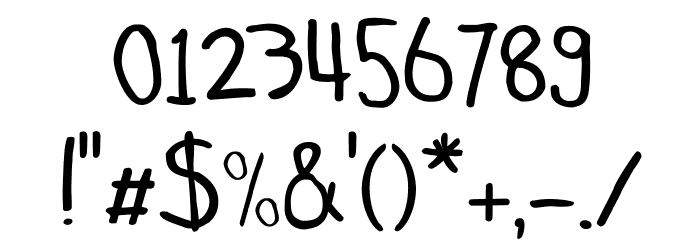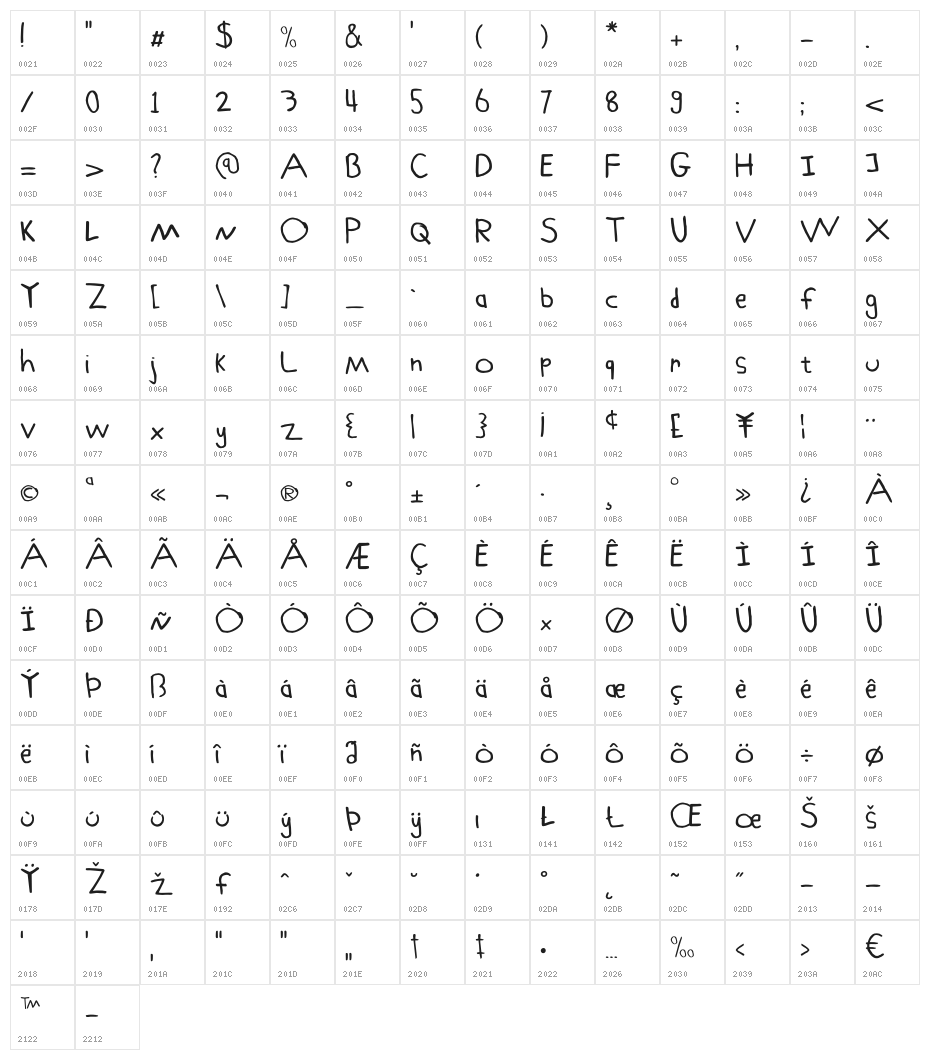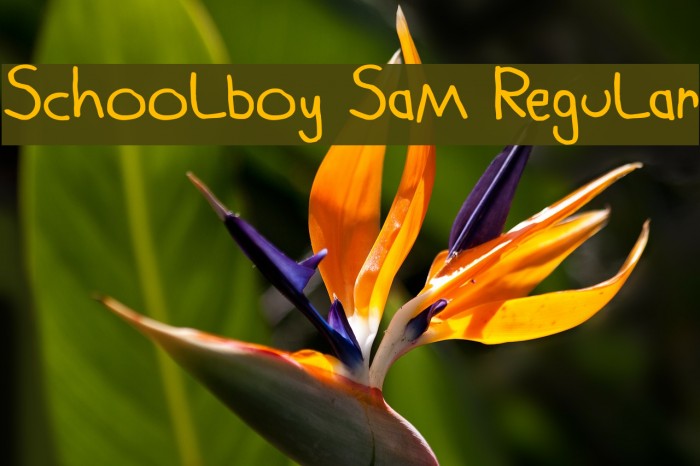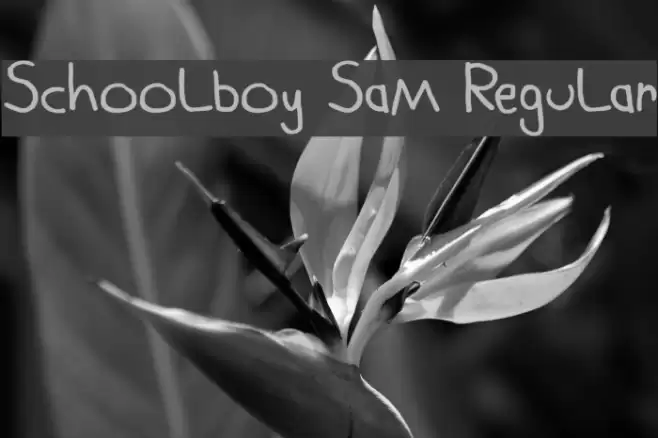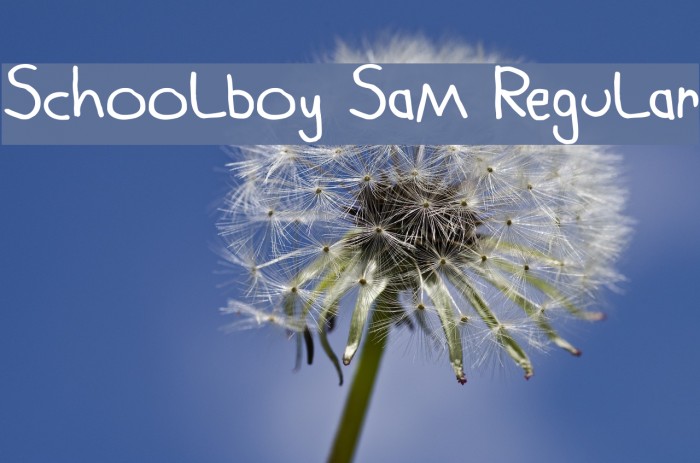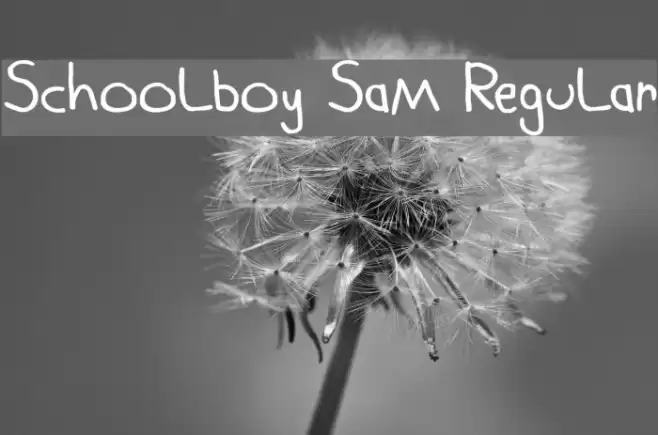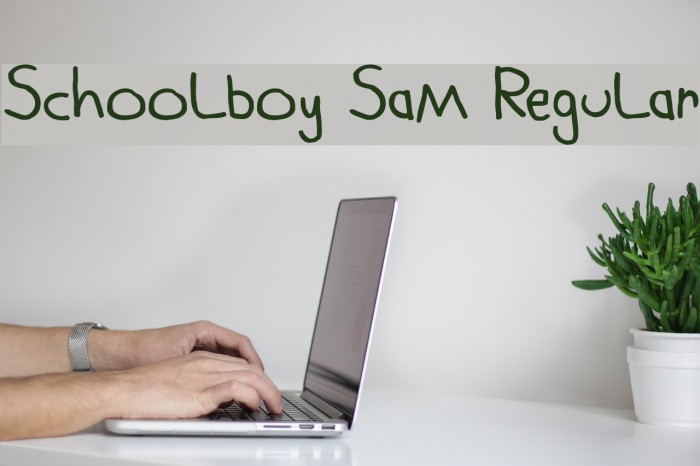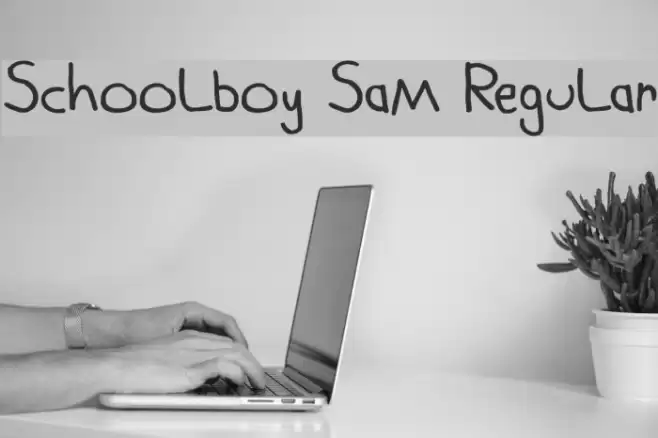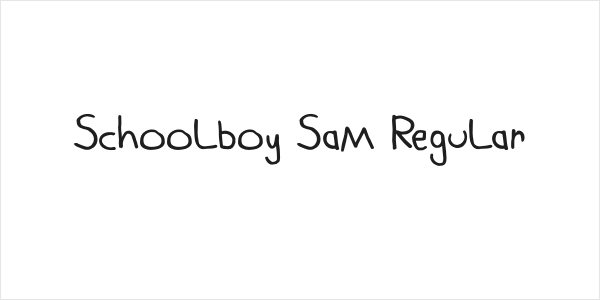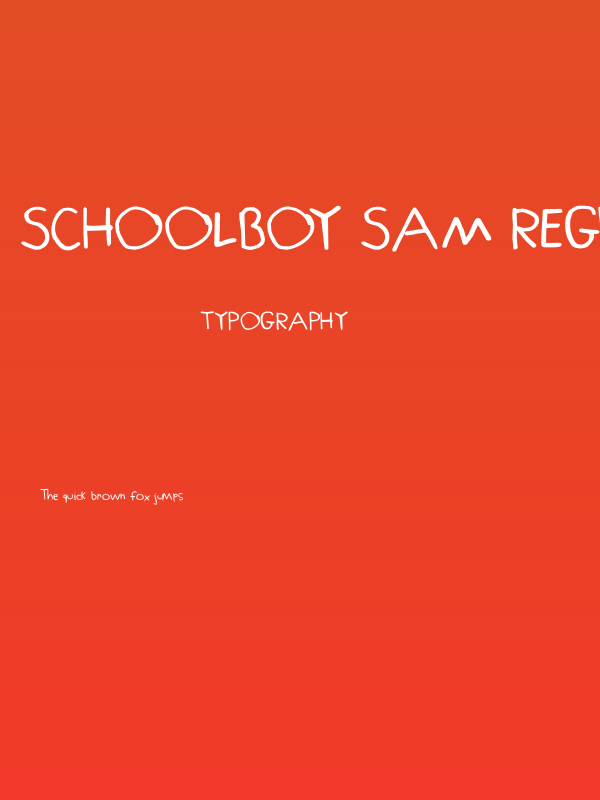
Schoolboy Sam Regular Font
Schoolboy Sam Regular Description
This playful and informal font captures the essence of a child's handwriting with its uneven strokes and whimsical character shapes. Each letter has a unique, hand-drawn appearance, lending a personal and approachable feel. The font maintains a consistent baseline, yet the varying heights and widths of the characters add to its charm. The rounded edges and slightly irregular lines contribute to its friendly and casual style, making it ideal for projects that require a touch of personality and warmth. The numerals and special characters follow the same playful design, ensuring a cohesive look across all text elements.
Overall StyleCasual
Use CaseHeadlines, Logos, Informal Text
Proposed ProjectsIdeal for children's books, educational materials, playful branding, and casual invitations.